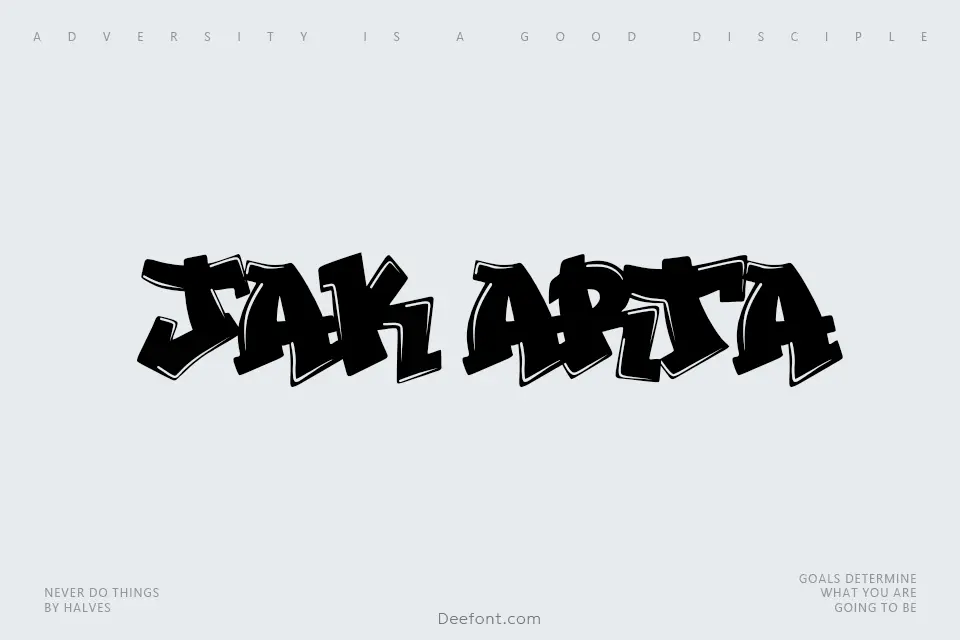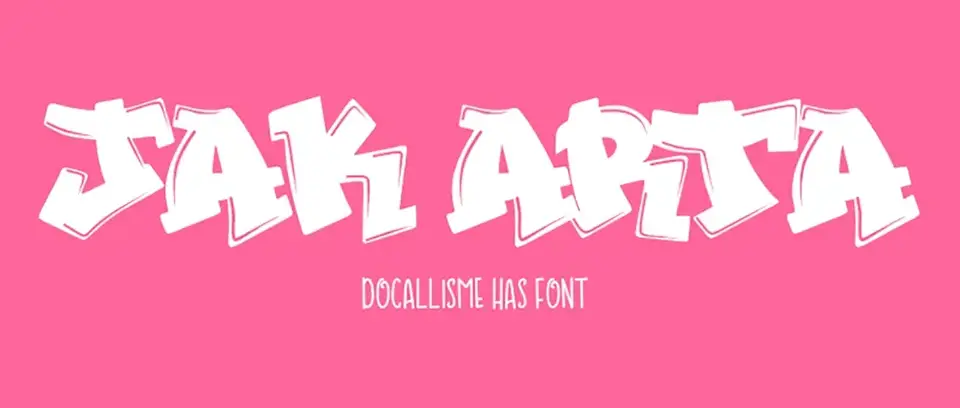
Jak Arta Font
Jak Arta is a striking graffiti and script typeface that brings street art energy to your designs. With bold, expressive letterforms and an urban edge, this font is perfect for eye-catching headlines, posters, and creative projects that demand attention. Its dynamic style combines handwritten warmth with contemporary flair, making it ideal for designers seeking authentic, rebellious typography.
Designed by:Docallisme (Amry Al Mursalaat)